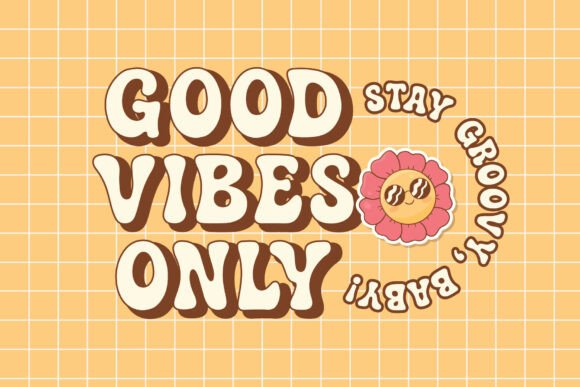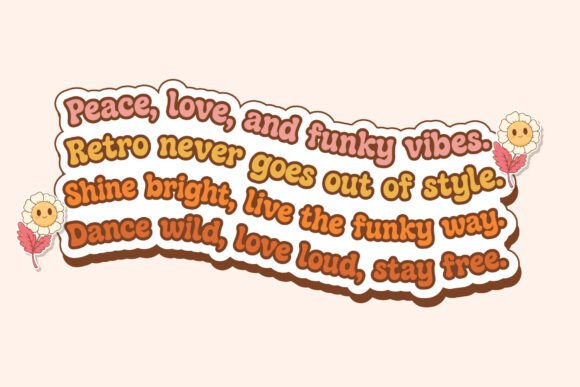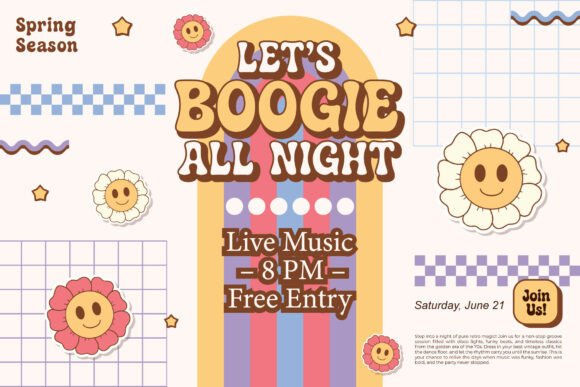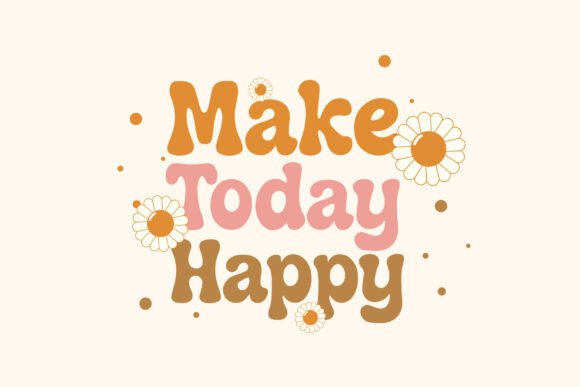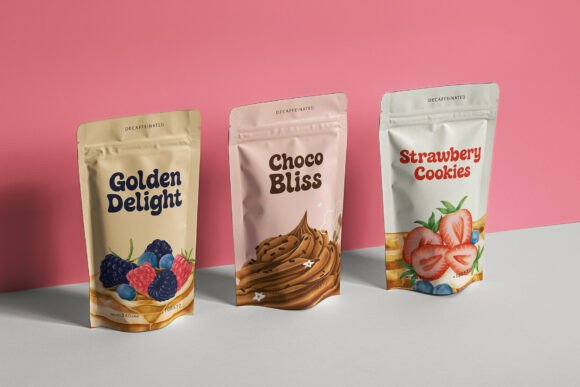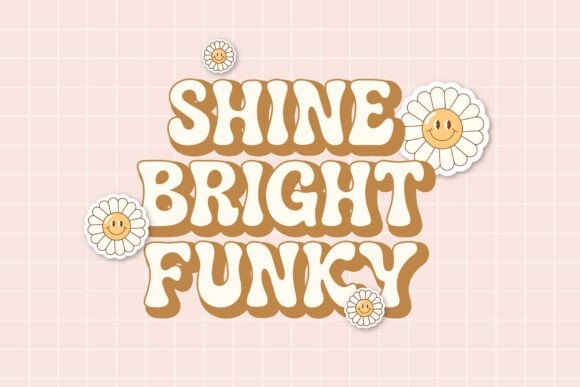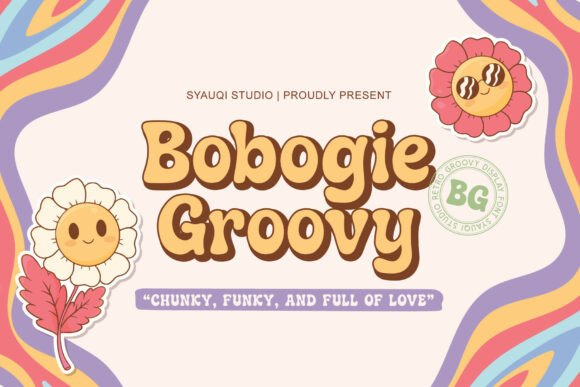
Introducing Bobogie Groovy Font: The Ultimate Retro Display Font
Step into a world of vibrant colors, swirling shapes, and funky vibes with Bobogie Groovy – a bold retro display font inspired by the golden age of the ’60s and ’70s. This typeface dances with personality, blending chunky curves, playful letterforms, and a joyful rhythm that will make any design sing.
A Blast from the Past
Bobogie Groovy is more than just a font – it’s a time machine that takes you back to an era of flower power, disco fever, and endless grooves. The font’s design is heavily influenced by the iconic typography of the 1960s and 1970s, with its chunky curves, playful letterforms, and bold lines. Whether you’re creating a psychedelic poster, a vintage-inspired logo, or packaging that needs a pop of nostalgia, Bobogie Groovy delivers that perfect mix of retro charm and modern style.
Key Features of Bobogie Groovy Font
- Bold and Chunky Curves: Bobogie Groovy features smooth, thick curves that give it a distinctive retro look.
- Playful Letterforms: Each letter is carefully crafted to bring a sense of fun and playfulness to your designs.
- Joyful Rhythm: The font’s rhythm and flow make it perfect for creating eye-catching headlines and titles.
Bobogie Groovy is an excellent addition to any designer’s or crafter’s toolkit. Its versatility makes it suitable for a wide range of projects, including:
- Psychedelic Posters: Create eye-catching posters that capture the essence of the ’60s and ’70s.
- Vintage-Inspired Logos: Add a touch of nostalgia to your brand’s logo with Bobogie Groovy.
- Packaging Design: Give your product packaging a retro makeover with this funky font.
- Merchandise: Create fun and colorful merchandise, such as t-shirts, stickers, and more.
- Social Media Graphics: Add a pop of personality to your social media graphics with Bobogie Groovy.
Tips for Using Bobogie Groovy Font
To get the most out of Bobogie Groovy, here are some tips:
- Experiment with Colors: The font’s bold and chunky curves look great with bright, vibrant colors.
- Play with Patterns: Combine Bobogie Groovy with fun patterns, such as paisley or florals, to create a unique look.
- Mix and Match: Pair Bobogie Groovy with other fonts to create a distinctive contrast.
Bobogie Groovy Font is your ticket to the era of bell-bottoms, peace signs, and endless grooves. With its bold and chunky curves, playful letterforms, and joyful rhythm, this retro display font is perfect for designers and crafters looking to add a touch of nostalgia to their projects. Whether you’re creating a psychedelic poster, a vintage-inspired logo, or packaging that needs a pop of nostalgia, Bobogie Groovy delivers. So why wait? Get groovy with Bobogie Groovy Font today!